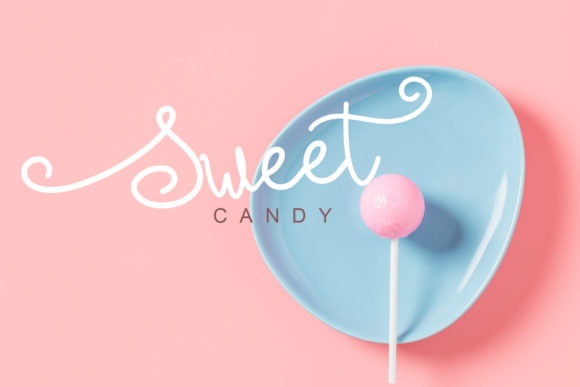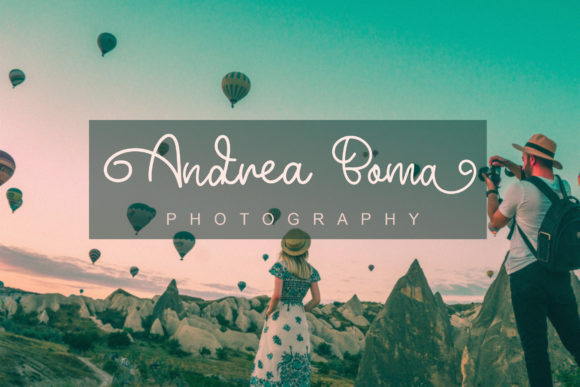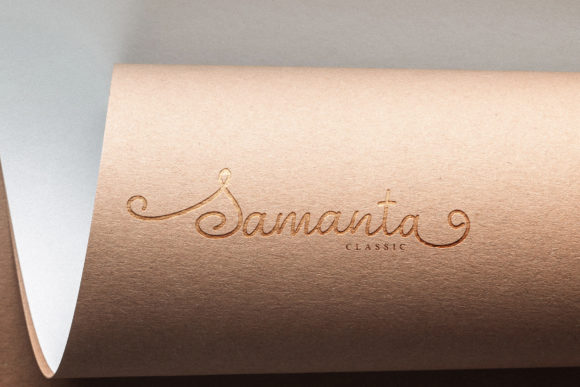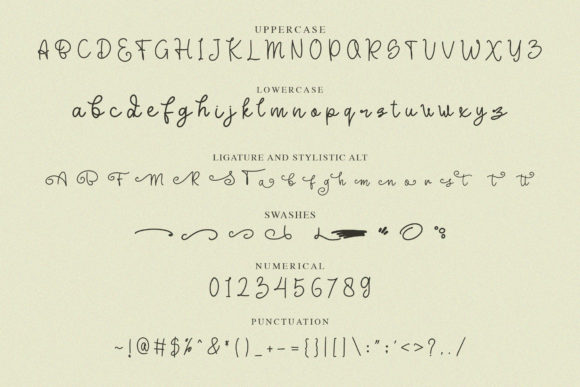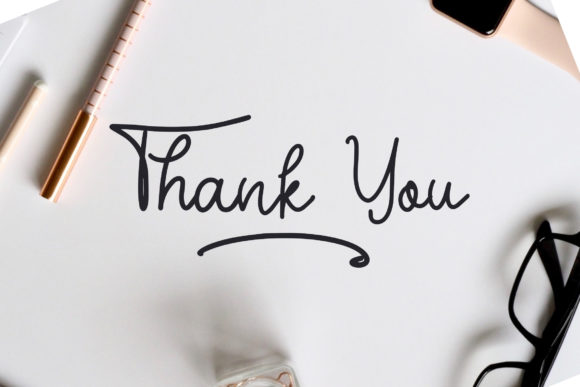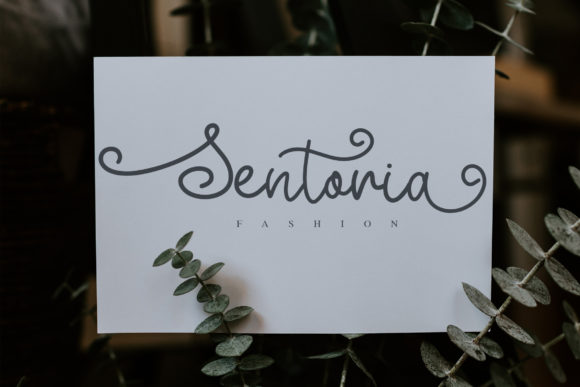
Smotie Butter Font
About Smotie Butter Font
Smotie Butter is a delicate, elegant and flowing handwritten font. It has beautiful and well balanced characters and as a result, it matches a wide pool of designs. Add it to your most creative ideas and notice how it makes them come alive!